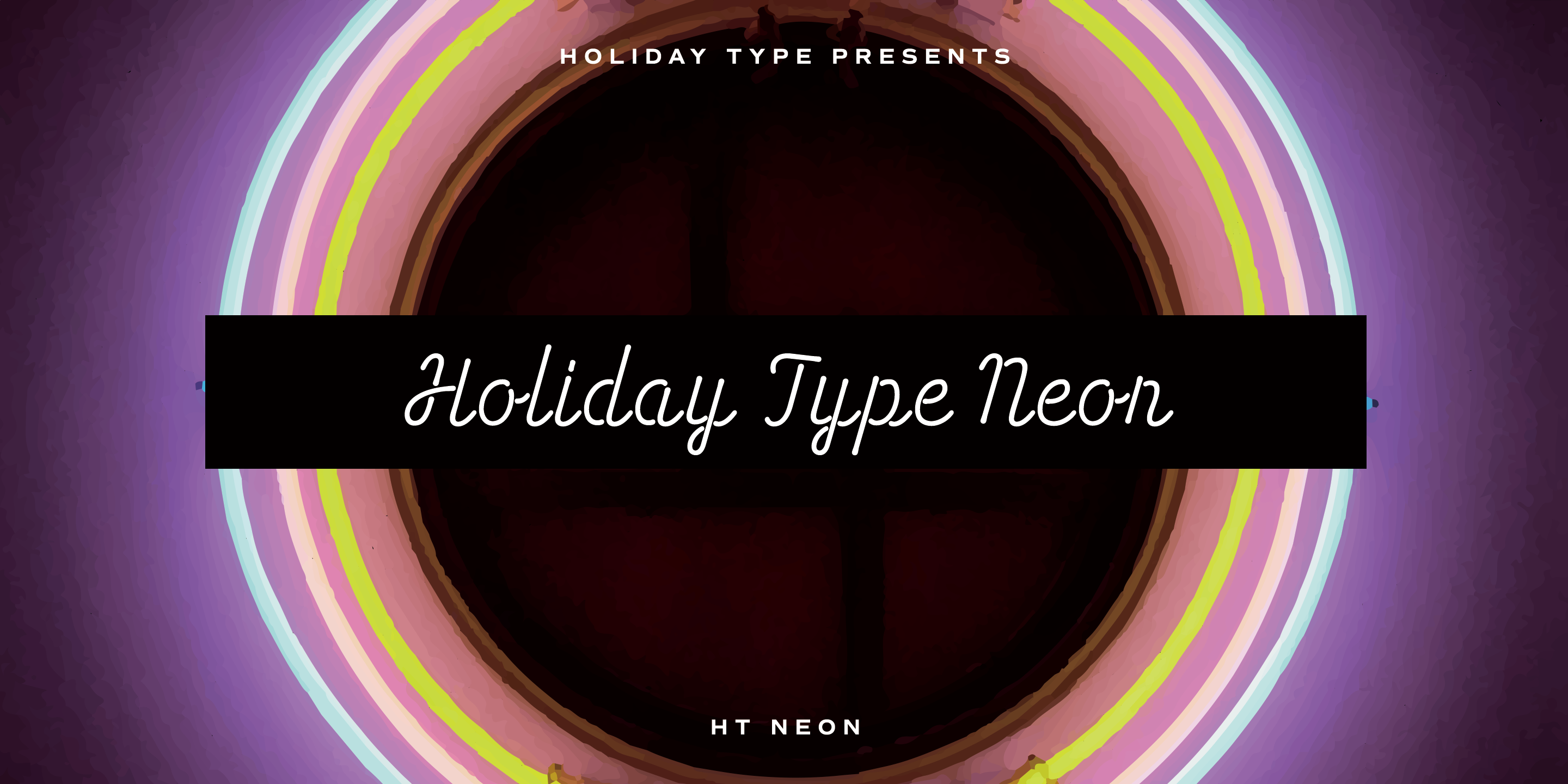
HT Neon Free Download
HT Neon Font Free Download
HT Neon Font is ideal for nightclub branding, retro gaming graphics, cyberpunk designs, neon signage, electronic music events, futuristic interfaces, and vibrant entertainment communications. This electrifying typeface brings glowing energy and cyber aesthetics to dynamic design projects.
HT Neon Font is exciting because it captures the electric glow and pulsating energy of neon lighting with its luminous letterforms that convey digital excitement and cyber sophistication while maintaining exceptional clarity in dark atmospheric applications.
The HT Neon Font family includes multiple weights and glowing variations that simulate authentic neon lighting effects. This electrifying collection provides designers with vibrant options for creating memorable and energetically charged brand experiences.
HT Neon Font Free Download provides access to an electrically crafted typeface that embodies the vibrant energy and cybernetic appeal of neon lighting and digital culture. This luminous font features brilliantly designed letterforms with glowing details that create immediate associations with nightlife, electronic music, and futuristic technology. The typeface showcases electric proportions and cyber aesthetics that enhance entertainment communications while maintaining professional functionality. Its electrifying character makes it particularly suitable for entertainment venues and tech brands that require typography capable of conveying energy, digital sophistication, and cyber culture. HT Neon Font delivers exceptional electric impact for applications where conventional fonts lack the vibrancy and digital character necessary for cyberpunk and entertainment communications. The font's neon appeal and electric aesthetic make it an essential tool for designers working on projects that require typographic expression of digital energy, cyber culture, and electronic excitement that resonates with audiences seeking vibrant experiences and futuristic visual communication.